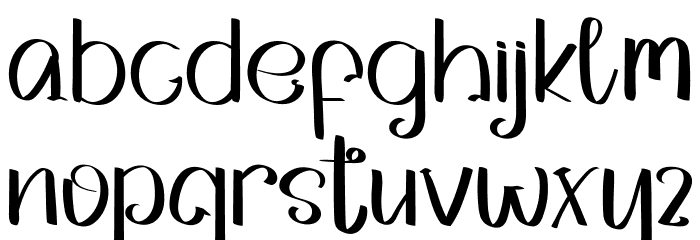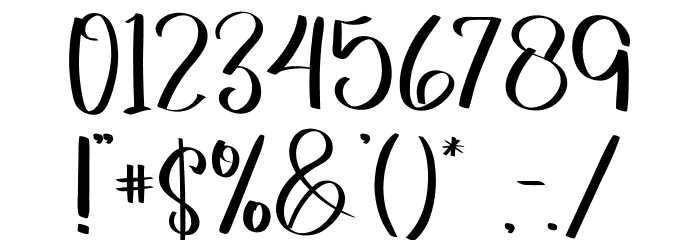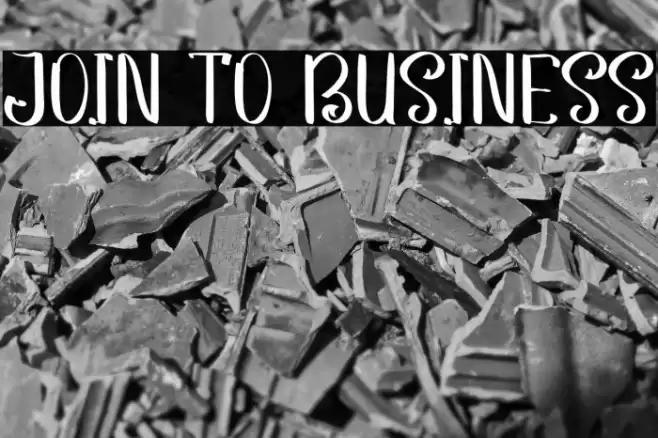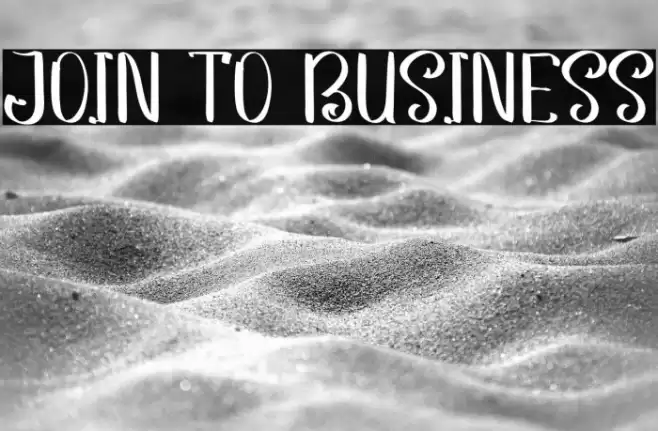
JOIN TO BUSINESS Font
This font features a playful and whimsical design with a handwritten style. The characters are bold and have a unique flair, with some letters incorporating decorative swirls and loops. The uppercase letters are tall and slightly narrow, while the lowercase letters maintain a consistent height with a more rounded appearance. Numbers and special characters follow the same playful theme, making the font suitable for creative and informal projects. The overall design is eye-catching and adds a touch of personality to any text.
A playful, handwritten font with decorative swirls and bold characters.
- Proposed Projects: Ideal for children's books, greeting cards, playful branding, and creative posters.